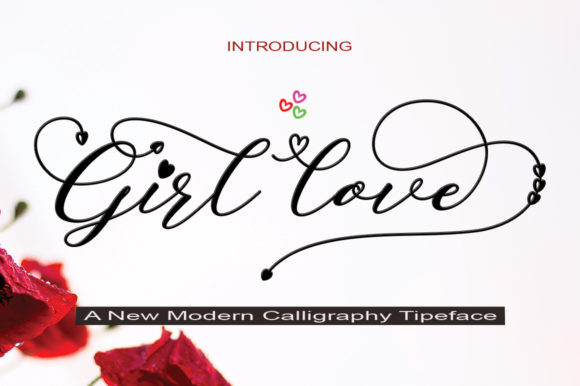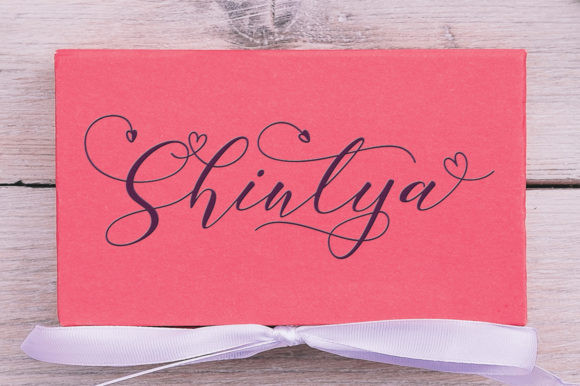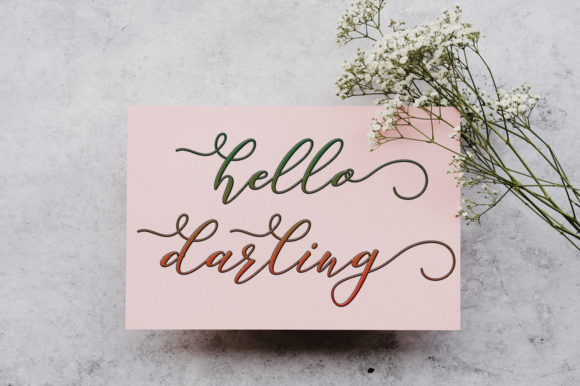
Girl Love Font
Girl Love is cute and whimsical, but also casual. This versatile display font has a wide range of applications ranging from greeting cards to stunning calligraphy art and is guaranteed to add an elegant touch to your next design.